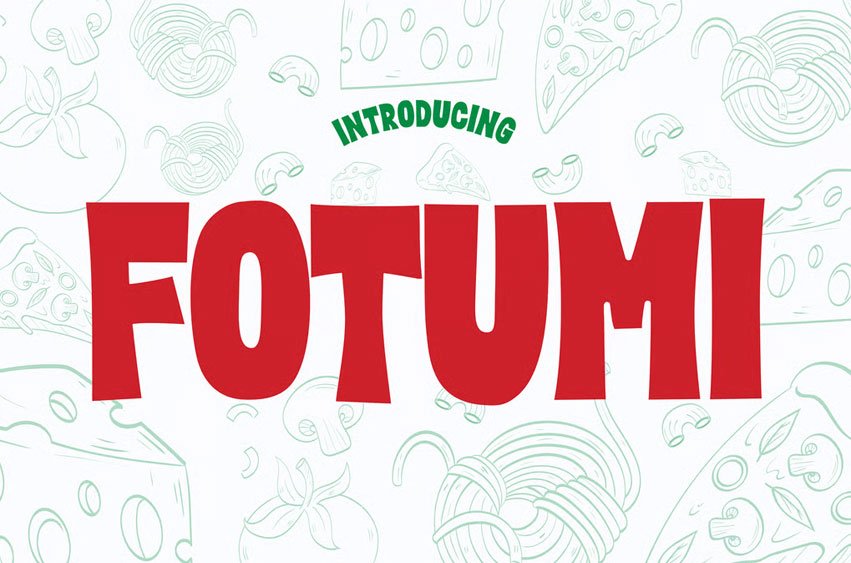
Fotumi Font is a bold and expressive Italian-inspired display typeface designed to amplify food branding with warmth and character. Its thick strokes, rounded contours, and friendly handmade feel create an inviting visual presence that works beautifully across pizza menus, pasta promotions, storefront boards, and cozy family-style restaurant branding. The playful curves deliver strong readability while preserving an authentic trattoria personality.
Perfect for Italian eateries, fast-casual restaurants, food stalls, recipe content, catering services, and packaged food labels. FOTUMI reinforces comfort, family energy, and flavorful storytelling for posters, menu headers, special-offer boards, product visuals, and social media campaigns centered around pasta, pizza, and hearty home-style dishes.
Give your Italian food brand a bold and flavorful voice. FOTUMI adds warmth and personality to every dish you present, making menus and promotions instantly more memorable.